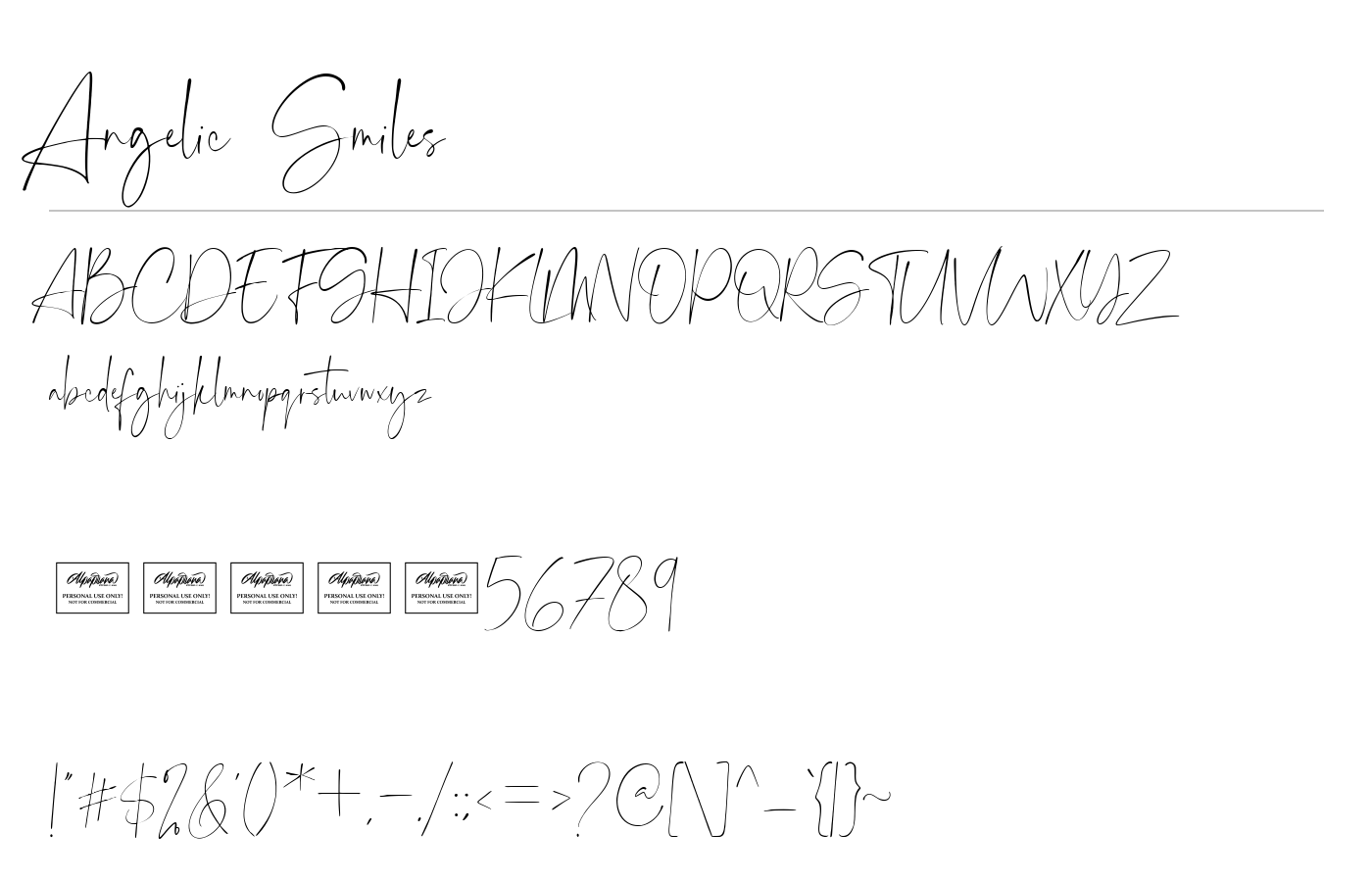
Angelic Smiles is a delicate, handwritten script font with a light weight and airy, flowing strokes that give it a graceful, natural feel. Its tall x-height and narrow letterforms create an elegant but casual look, perfect for adding a personal touch to invitations, branding, or social media designs. This font works best in creative, feminine contexts where a soft, handwritten aesthetic is desired.
Angelic Smiles Font
About Angelic Smiles Font
| Font family | Angelic Smiles Font |